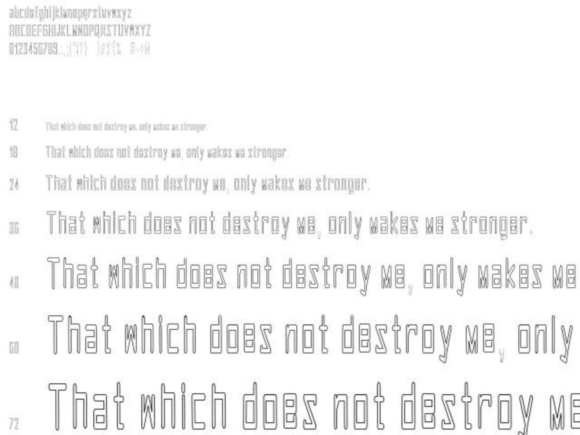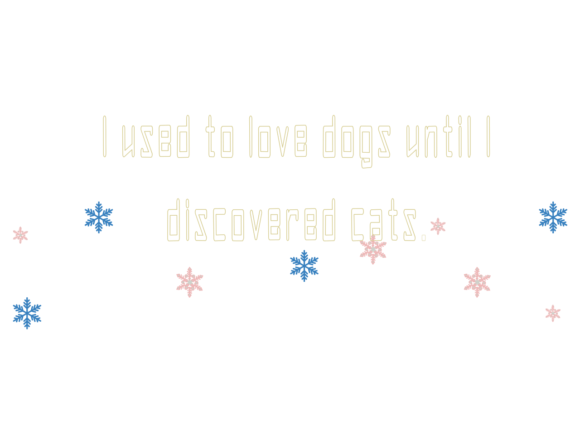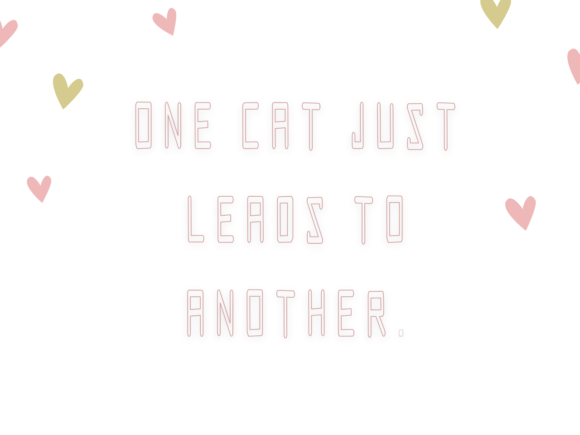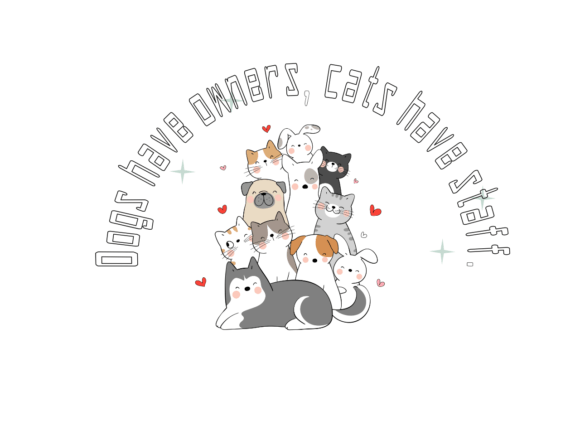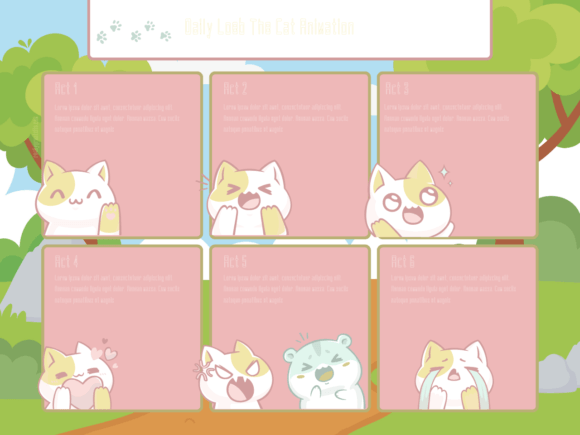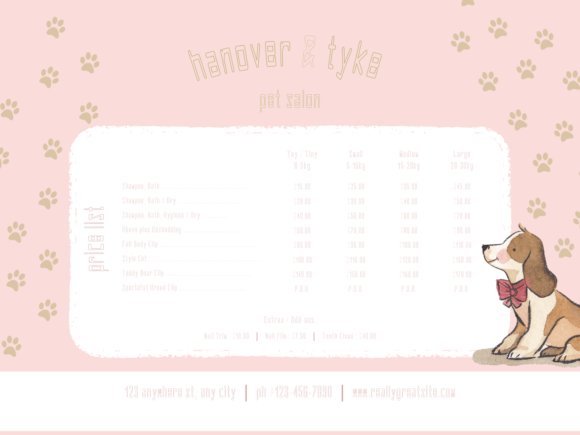
Discover the Joy of Border Font: Your New Design BFF
Have you ever sat at your desk, staring blankly at a blank page, waiting for inspiration to strike? For many creatives, this moment is all too familiar. But what if I told you that there’s a font that can spark joy and make your designs shine? Enter Border Font, a delightful display font that’s sure to put a smile on your face.
Designed with friendliness and approachability in mind, Border Font is perfect for crafts, digital design, presentations, and more. Its playful and easy-to-read style makes it a valuable asset for designers looking to add a personal touch to their work. Whether you’re a seasoned pro or just starting out, Border Font is sure to become your go-to font for any occasion.
Key Features of Border Font
- Font Type: Border Font is a sans-serif font with a unique border design, making it ideal for use in digital products, logos, and branding.
- Unique Characteristics: The distinctive border design of Border Font adds a touch of sophistication and modernity to any design, making it a great choice for contemporary branding and design projects.
Border Font Review
Overall, I found Border Font to be an interesting and unique font family. ✨ It offers a wide range of styles and weights, making it suitable for various design projects.
- ✨ Customization Options: Border Font provides a good level of customization, allowing designers to fine-tune their designs to meet specific requirements.
- ✨ Wide Range of Weights: The font family includes a variety of weights, from light to bold, making it easy to choose the perfect weight for a particular design.
- ✨ Legibility: Despite its unique design, Border Font is surprisingly legible, making it suitable for both digital and print designs.
However, there are some limitations to consider: ⚠️ The font’s complexity may lead to compatibility issues in certain software or systems. Additionally, the font’s bold weights can sometimes appear overly condensed.
Overall, Border Font is a solid choice for designers who want to add a unique touch to their projects. While it may not be suitable for every design, it can be a great addition to a designer’s toolkit. With some careful selection and customization, Border Font can help create visually striking designs.